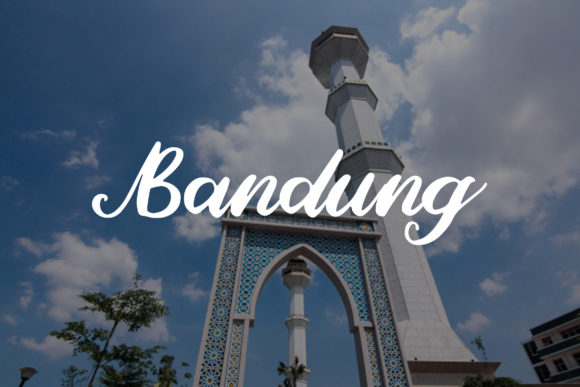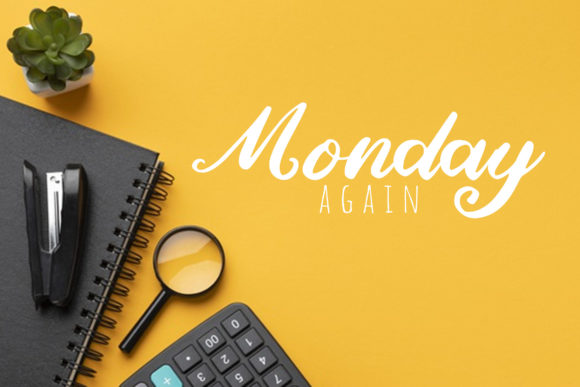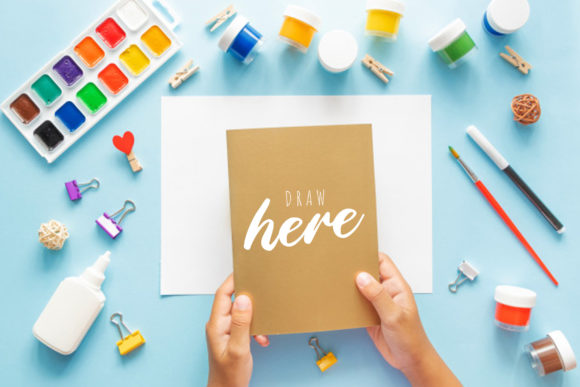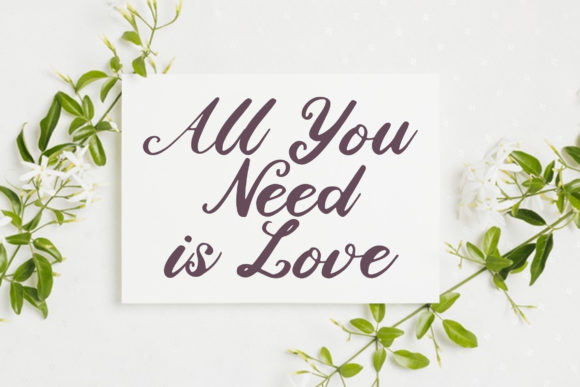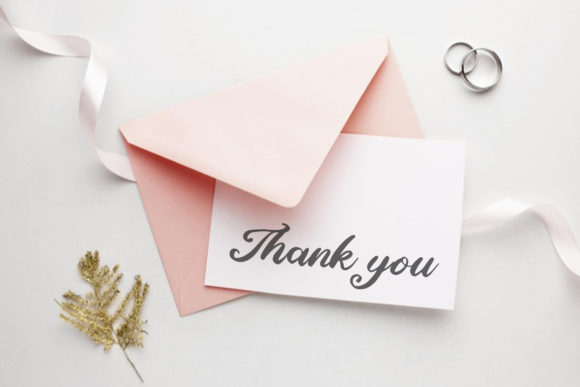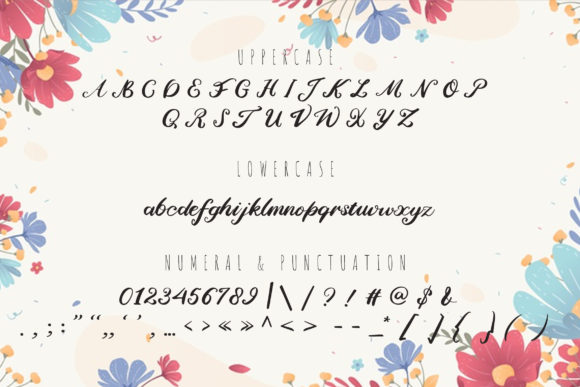
Rembulan Font
About Rembulan Font
Introducing “Rembulan,” a vintage styled and delicate handwritten font that brings a touch of nostalgia and elegance to your designs. Inspired by the beauty of vintage lettering, this font captures the essence of a bygone era and adds a charming and timeless touch to your projects.
With its delicate and intricate letterforms, “Rembulan” exudes a sense of sophistication and craftsmanship. Each character is carefully crafted to reflect the elegance and attention to detail reminiscent of vintage calligraphy. Whether you’re designing a logo, creating wedding invitations, or working on various branding materials, this font will elevate your designs and evoke a sense of nostalgia.
The versatility of “Rembulan” allows it to be used in various design applications. It works well for logos, where it can add a touch of vintage charm and authenticity to your brand identity. Additionally, it can be used for wedding invitations, providing a romantic and timeless feel to the special occasion. Whether it’s for headlines, t-shirts, letterhead, signage, labels, news articles, posters, or badges, this font brings a unique and distinctive look to your designs.
The vintage style of “Rembulan” is enhanced by its delicate and graceful strokes, evoking a sense of elegance and refinement. The handcrafted nature of the font gives it a personal and artisanal feel, adding character and authenticity to your designs. Whether you’re going for a retro-inspired look or simply want to add a touch of vintage charm, this font will do the job beautifully.
One of the advantages of “Rembulan” is its legibility and readability. While it has a vintage aesthetic, the letterforms remain clear and easy to read, ensuring that your message gets across effectively. This makes it suitable for various design contexts, whether it’s digital or print media.
“Rembulan” is a font that allows you to transport your audience to a different era, evoking a sense of nostalgia and elegance. Its vintage style and delicate design make it a versatile choice for a wide range of design projects. Embrace the timeless charm of “Rembulan” and let it add a touch of sophistication and nostalgia to your logos, invitations, headings, t-shirts, and much more.